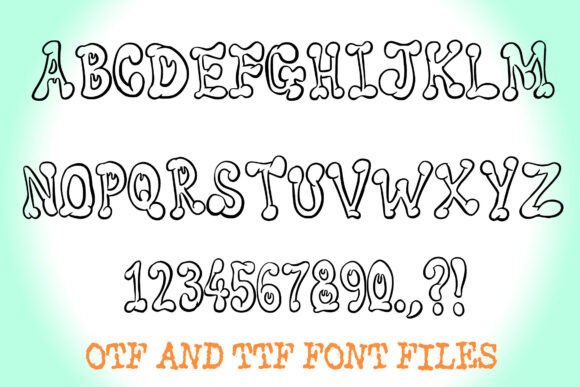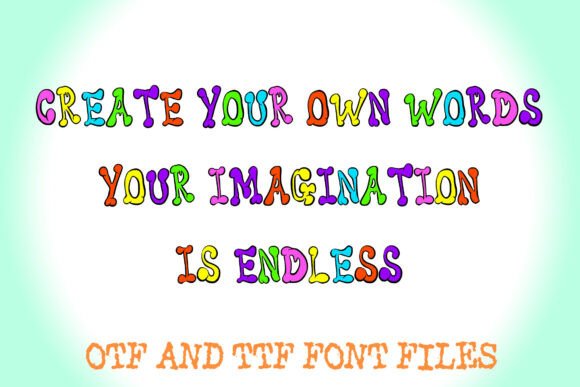
Get Ready to Jump into the World of Whimsy with Bouncy Cartoon Doodle Font
Have you ever been stuck on a design project, searching for that perfect font to capture the essence of your creative vision? We’ve all been there. But what if I told you there’s a font that can instantly add a playful, carefree vibe to any project? That’s where Bouncy Cartoon Doodle Font comes in – a hand-drawn display typeface designed to bring a smile to your face and a spring to your step.
This charming font is more than just a pretty face; it’s a powerful tool for designers looking to add some personality to their work. With its bubble-inspired shapes and doodle-style letterforms, Bouncy Cartoon Doodle Font is perfect for cartoon themes, children’s designs, and creative branding. Whether you’re working on a fun event graphic or playful product packaging, this font is sure to make your project stand out.
Bouncy Cartoon Doodle Font Key Features
- Font Style: A playful, hand-drawn font with a bouncy and cartoonish feel, suitable for children’s books, comics, and other creative projects.
- Character Count: Includes a wide range of characters, including uppercase and lowercase letters, numbers, punctuation marks, and special characters.
- Unique Characteristics: Features a unique, hand-drawn style with subtle imperfections, giving it a personal and whimsical touch.
Bouncy Cartoon Doodle Font Review
I recently had the chance to work with the “Bouncy Cartoon Doodle Font” and I must say it’s quite the character. ✨
- The font is incredibly versatile, with a wide range of usage scenarios, from children’s books to social media graphics.
- The playful, bouncy feel of the font makes it perfect for adding a touch of whimsy to your designs.
- The font is also highly customizable, with a range of sizes and colors to choose from.
However, there are a few limitations to be aware of: ⚠️
- The font may not be suitable for formal or professional designs, as it can come across as a bit too playful.
- The font’s lack of subtlety may make it difficult to read in smaller sizes or when used in conjunction with other bold fonts.
- The font’s cartoonish feel may not be to everyone’s taste, and some users may find it too childish.
Overall, I think the “Bouncy Cartoon Doodle Font” is a fun and creative addition to any designer’s toolkit. While it may not be suitable for every project, it’s perfect for those looking to add a bit of personality and whimsy to their designs.
For best results, use the Bouncy Cartoon Doodle Font in bold or large font sizes to emphasize text. Experiment with different colors and settings to create unique designs.
The Bouncy Cartoon Doodle Font is ideal for:
- Cartoon-style posters and graphics.
- Fun and playful social media posts.
Pacifico is a beautiful, handwritten font that is perfect for creating a friendly and approachable atmosphere. It is ideal for use in logos, branding, and packaging design. Pacifico is a more elegant and sophisticated alternative to Bouncy Cartoon Doodle Font, which is better suited for playful and whimsical designs.
Great Vibes is a modern, cursive font that conveys a sense of excitement and energy. It is suitable for use in headings, titles, and other display typography. Compared to Bouncy Cartoon Doodle Font, Great Vibes has a more refined and polished look, making it a great choice for designers who want to add a touch of sophistication to their designs.
Dancing Script is a lively, handwritten font that is perfect for creating a fun and festive atmosphere. It is ideal for use in invitations, posters, and other promotional materials. Dancing Script is similar to Bouncy Cartoon Doodle Font in its playful and whimsical nature, but it has a more fluid and dynamic feel.